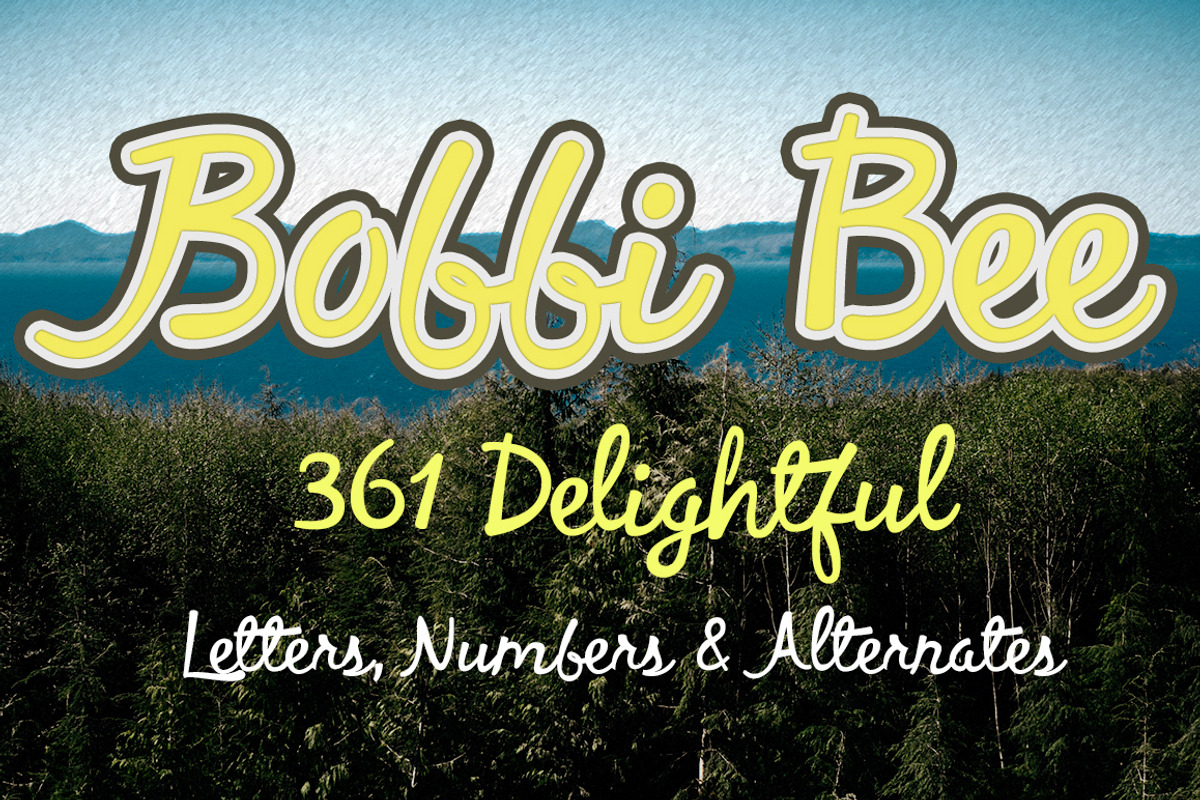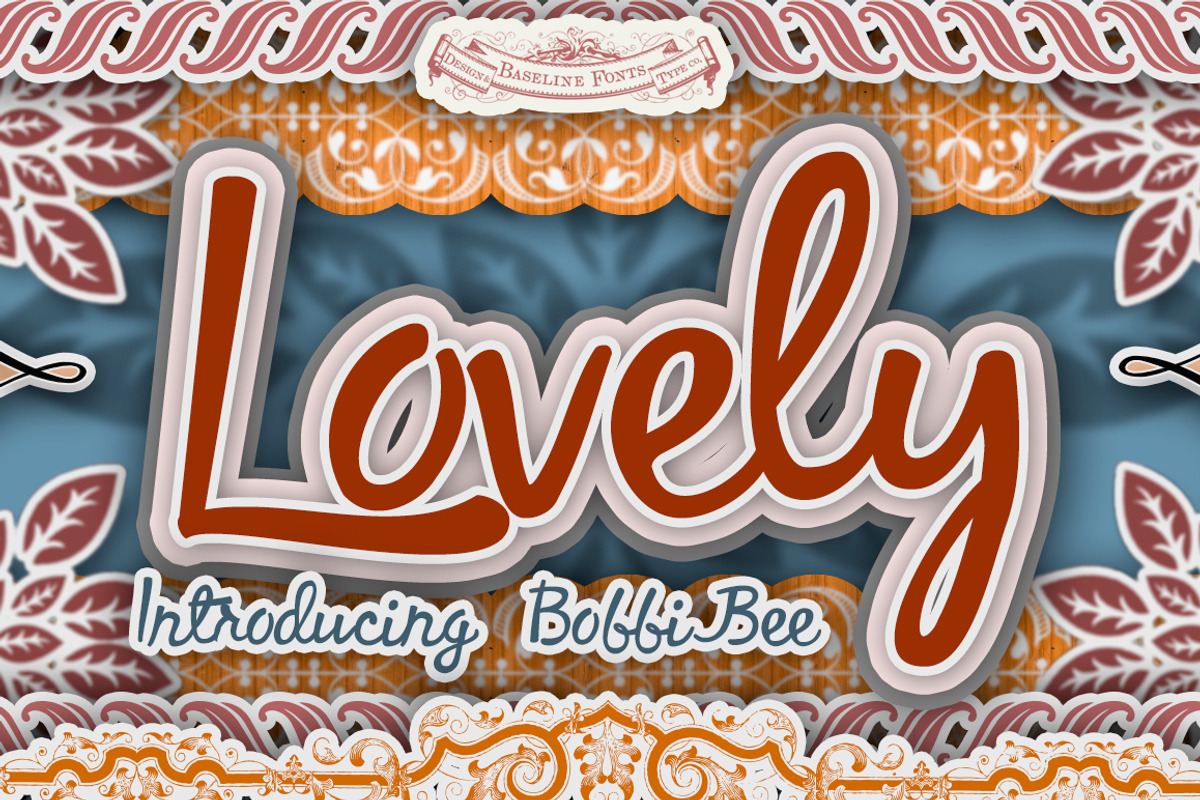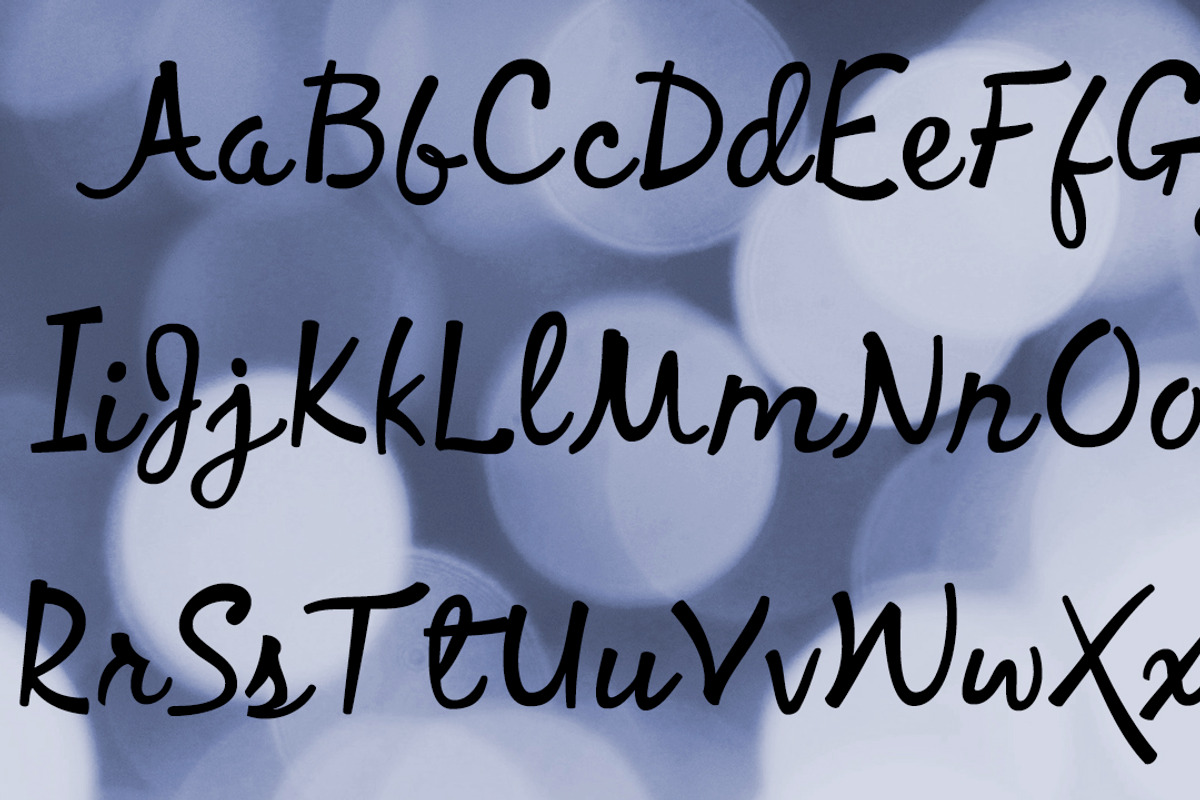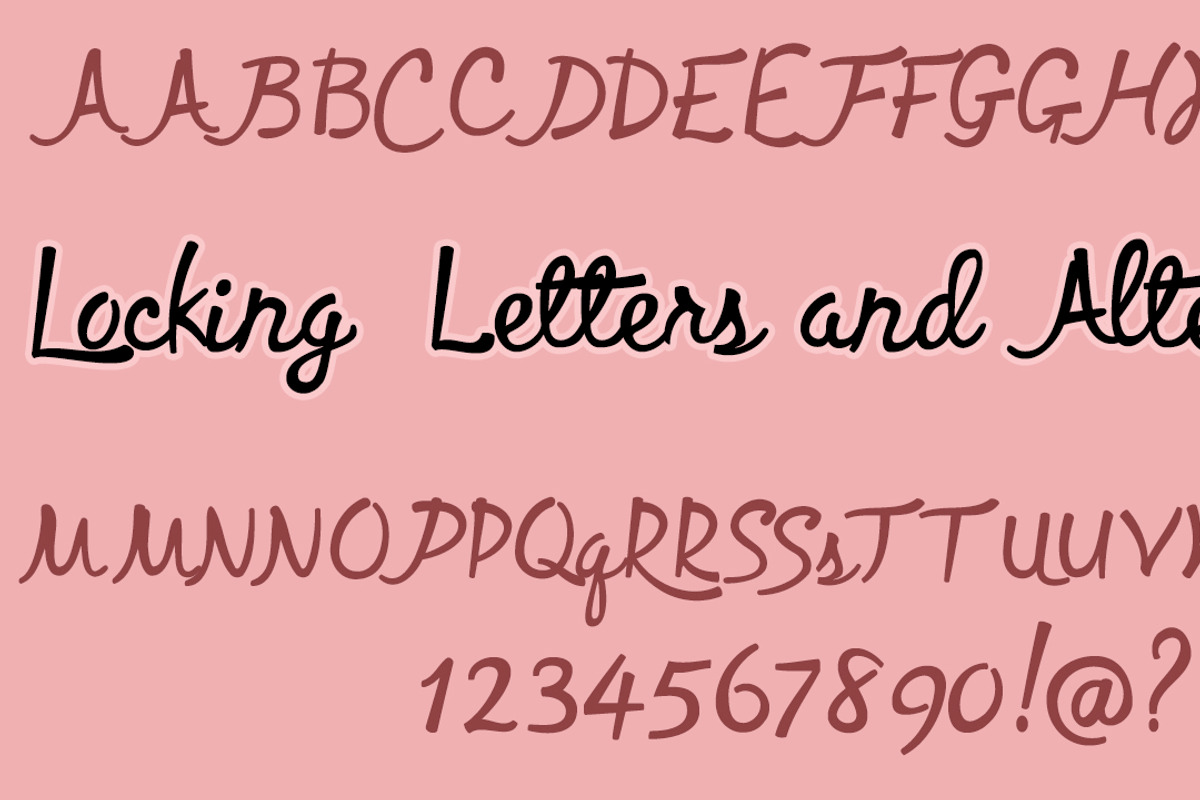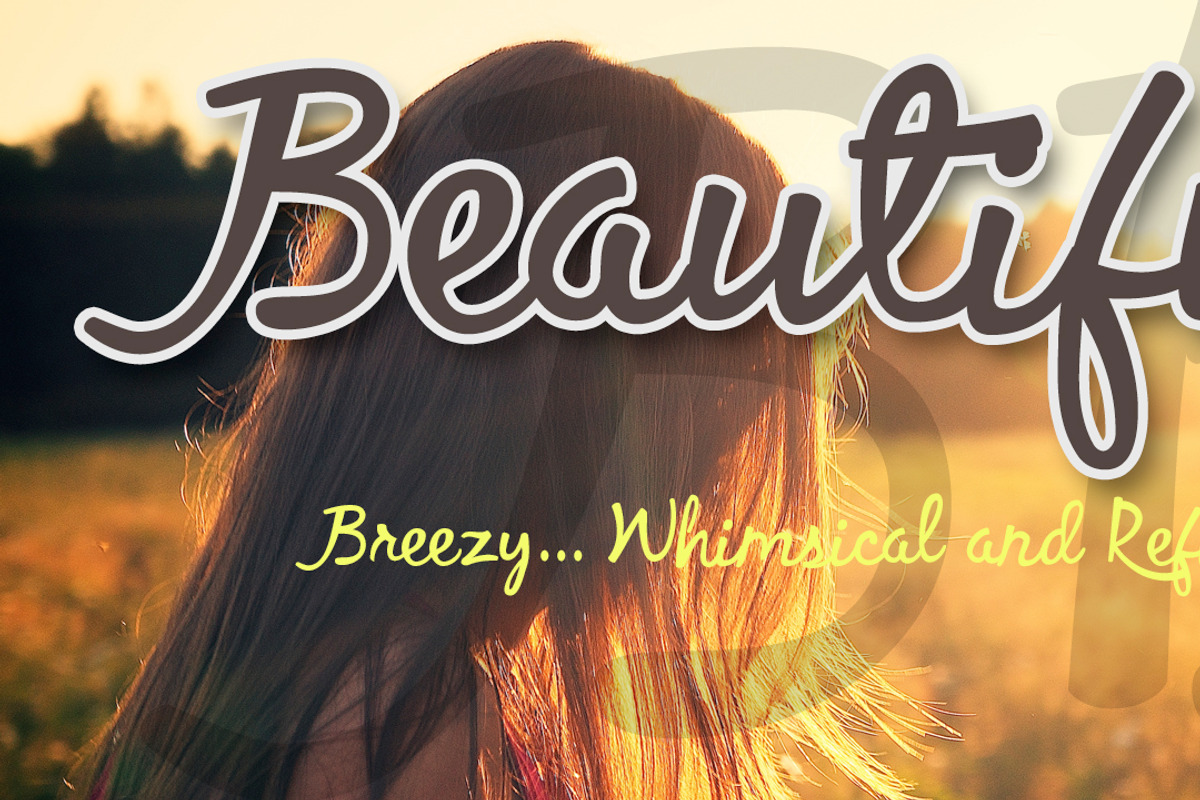
Bobbi Bee™
Bobbi Bee™ by Baseline Fonts is a font selected for branding, posters, packaging, typography.
- Bobbi Bee is very proud of all of her 361 numbers, letters and alternates-- all of which are chock full of summer sunshine and life.
Bobbi Bee™ by Baseline Fonts fits naturally into Branding, posters, packaging, typography.